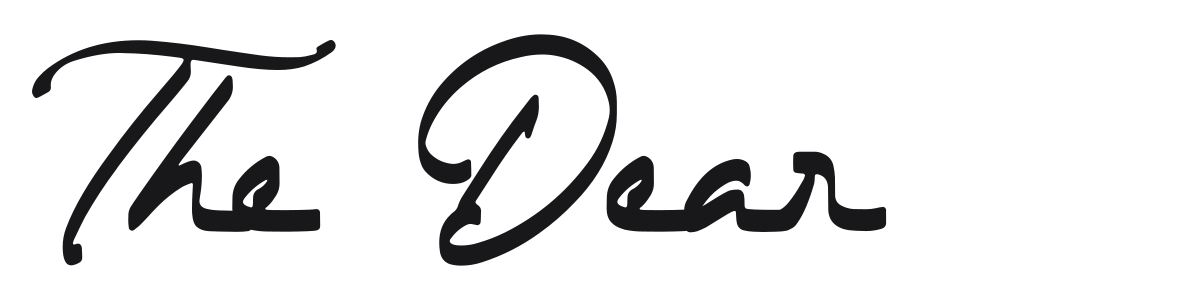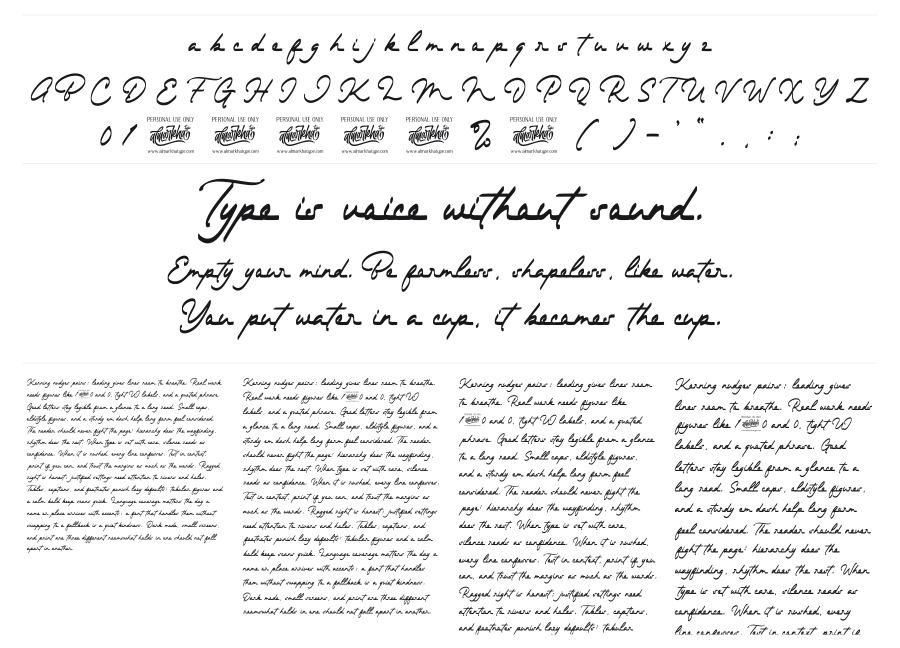
The Dear
The Dear is a flowing handwritten script from Almarkhatype Studio with the loose, confident energy of a personal signature. High stroke contrast between thick downstrokes and hairline connectors gives it a pen-on-paper authenticity that feels genuinely hand-drawn rather than constructed. It carries warmth and intimacy well at display sizes.